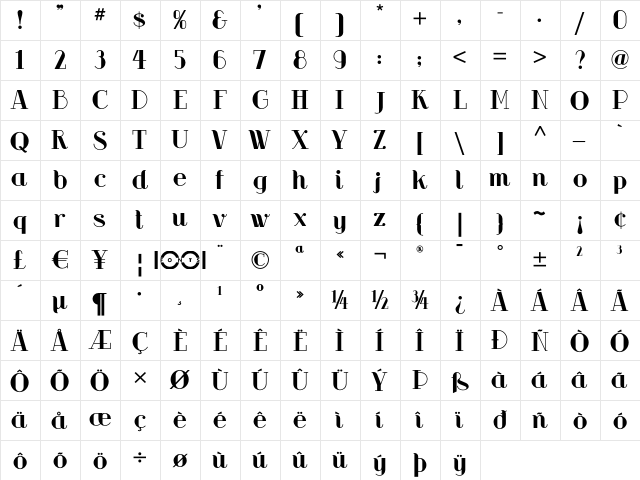
Riot Squad NF Regular
Design Context for Riot Squad NF Typeface
Riot Squad NF is a composed and adaptable typeface that performs quietly and consistently across a wide range of design contexts.